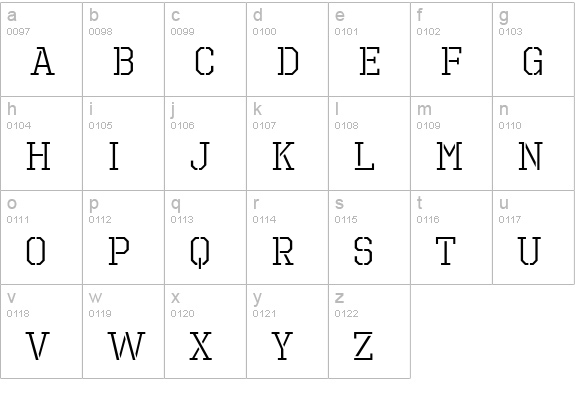
Octin Prison Bk Font Details
Octin Prison Bk font is a rugged and bold typeface that exudes a strong and authoritative presence. With its sturdy serifs and bold letterforms, this font commands attention and makes a powerful statement. Perfect for conveying a sense of strength and resilience, Octin Prison Bk is ideal for projects that require a bold and impactful design. The best part? Octin Prison Bk font is available for free download at FontsMarket.com. This means you can easily access this versatile typeface without any cost, making it a valuable addition to your font library. Whether you're working on a poster, logo, or any other design project, Octin Prison Bk font will help you make a bold statement and leave a lasting impression. Download it now and unleash its power in your designs!